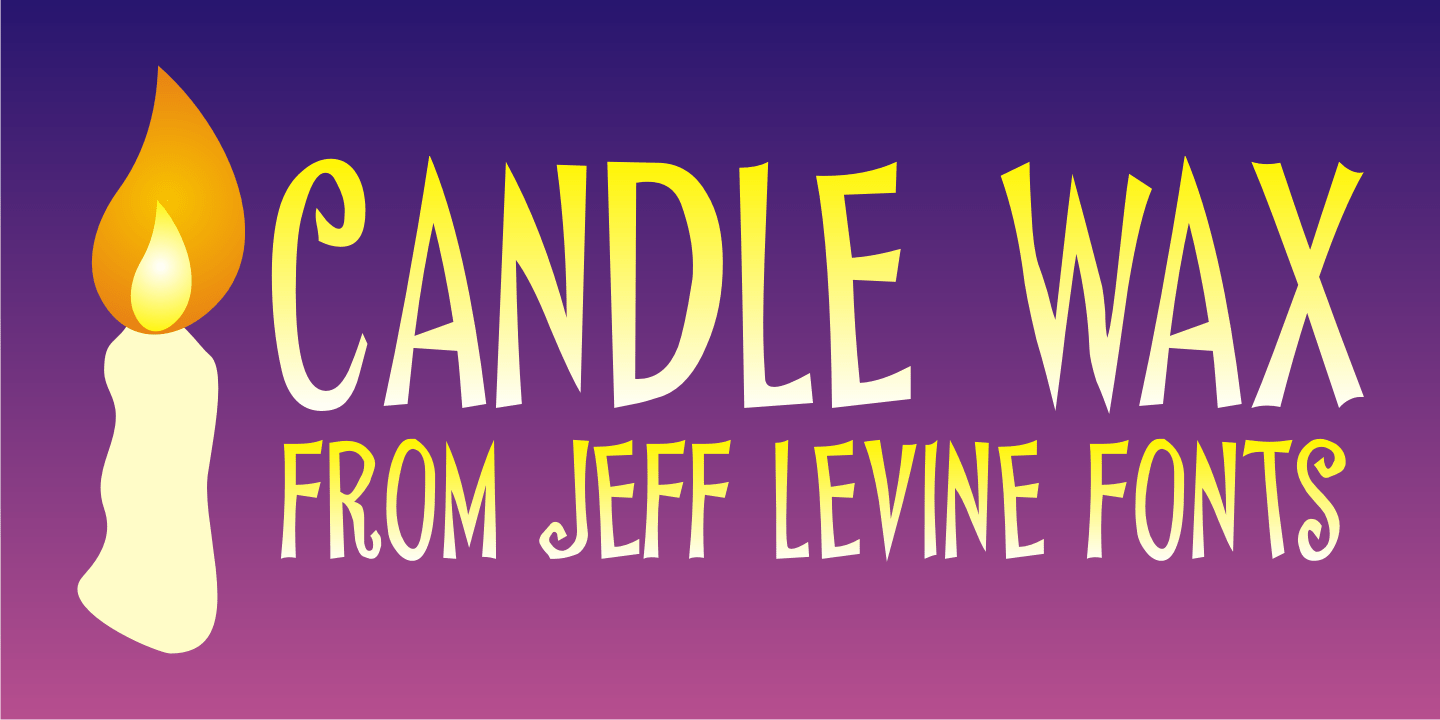
Candle Wax
The design of Candle Wax JNL comes from an original movie poster for the movie 'Bell, Book and Candle” starring James Stewart. The oddly erratic letter forms conjure up ideas of spells, witchcraft and other things found lurking on dark moonlit nights.